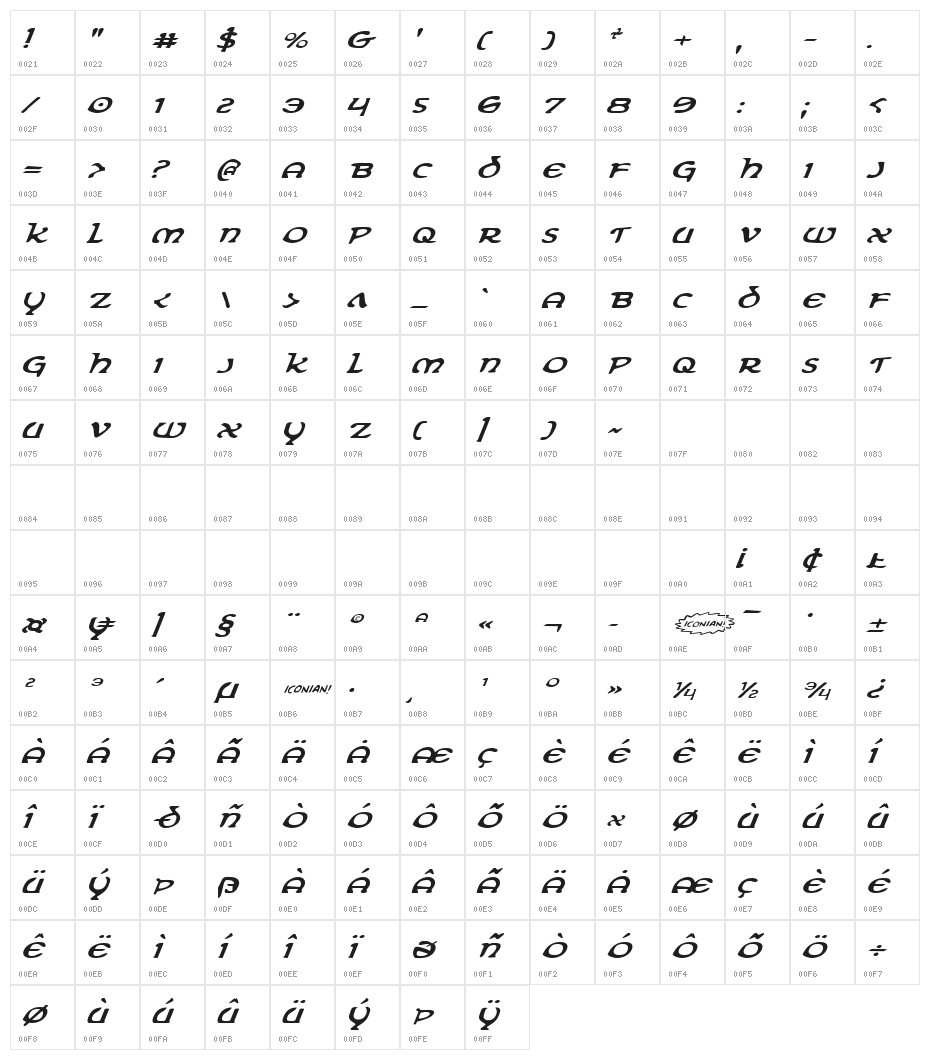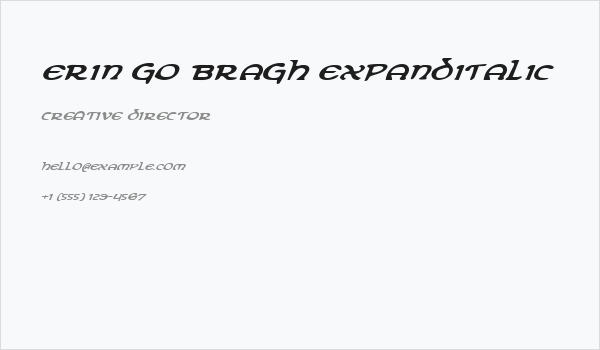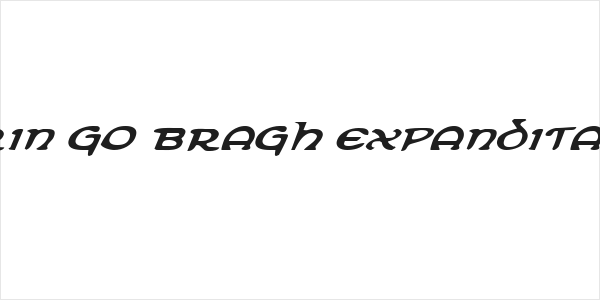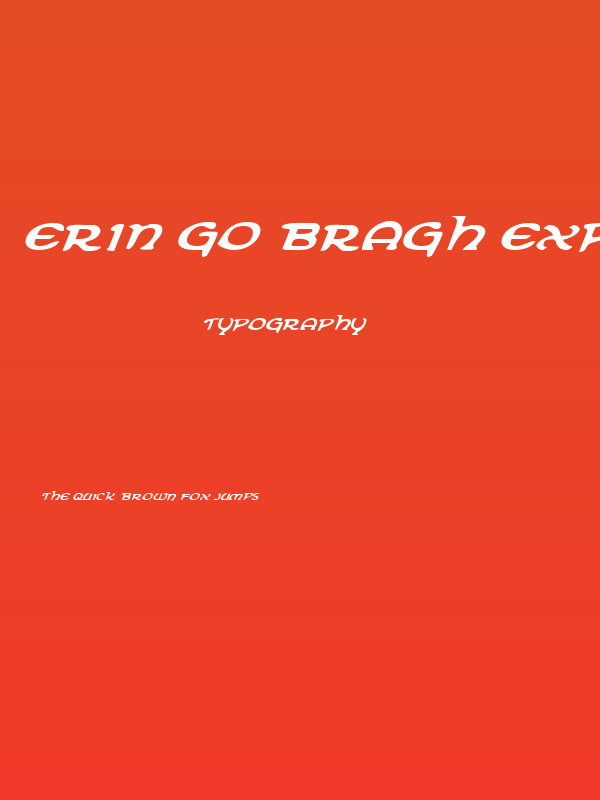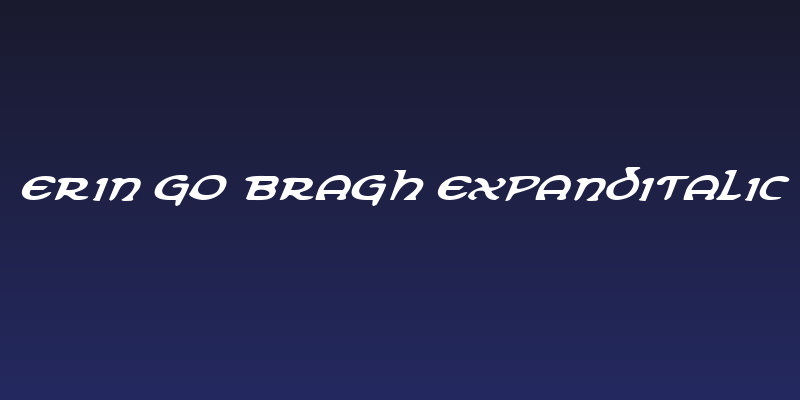
Erin Go Bragh ExpandItalic Font
Erin Go Bragh ExpandItalic Description
This font features a bold and dynamic style with a distinct italic slant, giving it a sense of movement and energy. The characters are uniquely designed with a combination of sharp angles and smooth curves, creating a visually striking appearance. The uppercase and lowercase letters maintain a consistent style, while the numbers and special characters are crafted to complement the overall design. The font's boldness and expanded width make it suitable for attention-grabbing headlines and display purposes.